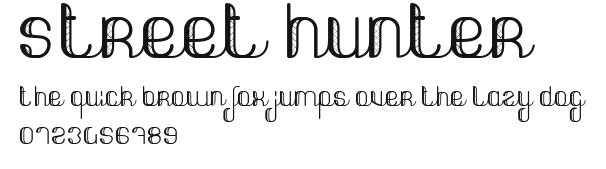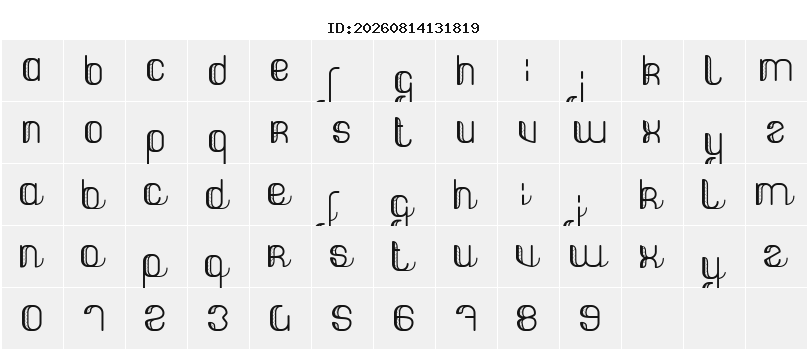
Street hunter Preview
• Font Name: Street hunter
• Full Font Name: Street hunter
• PostScript Name: Streethunter
• Designer: QKila
About Street hunter.ttf
Street hunter.ttf is a modern, elegant sans-serif font designed for ultimate readability and visual harmony. Perfect for branding, headlines, web design, and print materials.